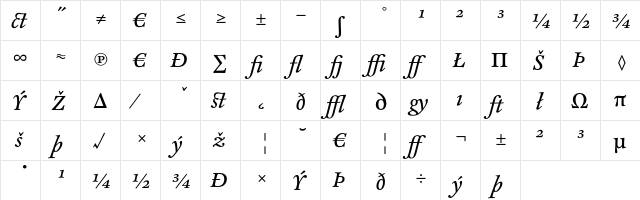
CliffordNine ItalicExpert
Design Context for CliffordNine Typeface
CliffordNine offers clean, dependable letterforms without strong stylistic allegiance, making it a practical choice for designers who need flexibility. Its italic angle brings a sense of urgency and motion to the letterforms.
Pro Tip: Use CliffordNine for emphasis, pull quotes, and subheadings where its slanted energy can add rhythm to the layout.